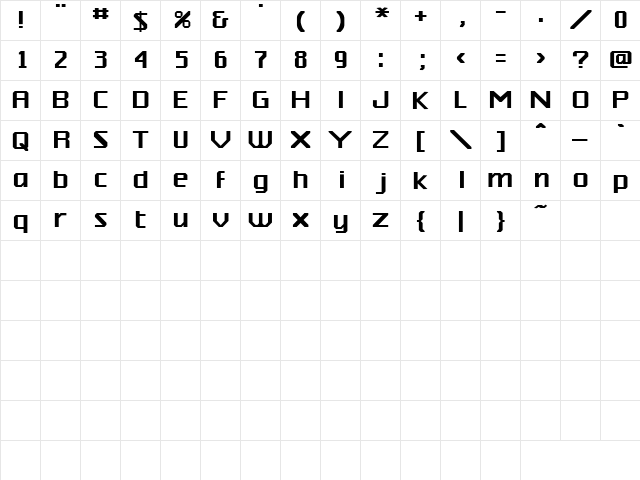
Big Money 1 Regular
Design Context for Big Money 1 Typeface
Big Money 1 offers clean, dependable letterforms without strong stylistic allegiance, making it a practical choice for designers who need flexibility.